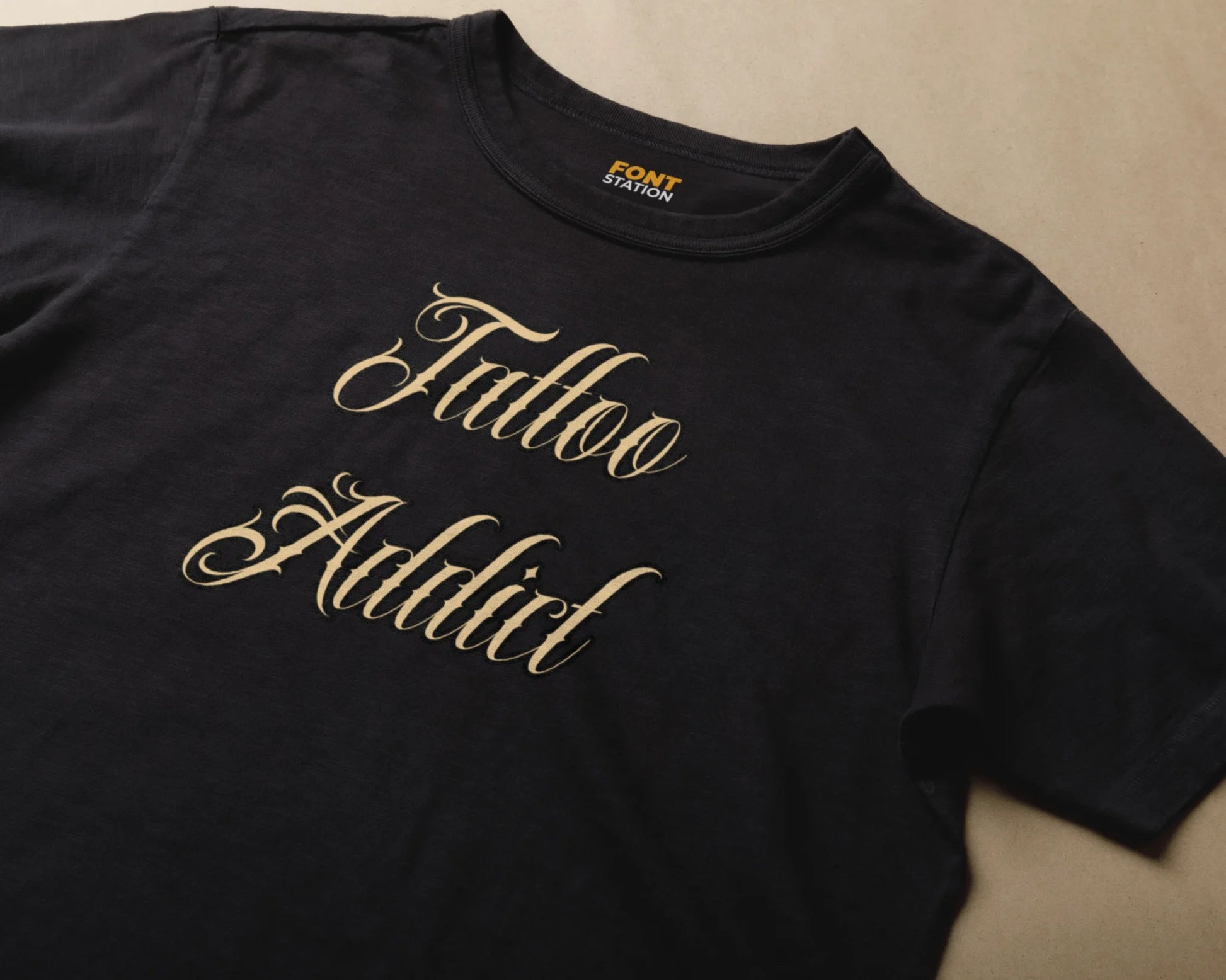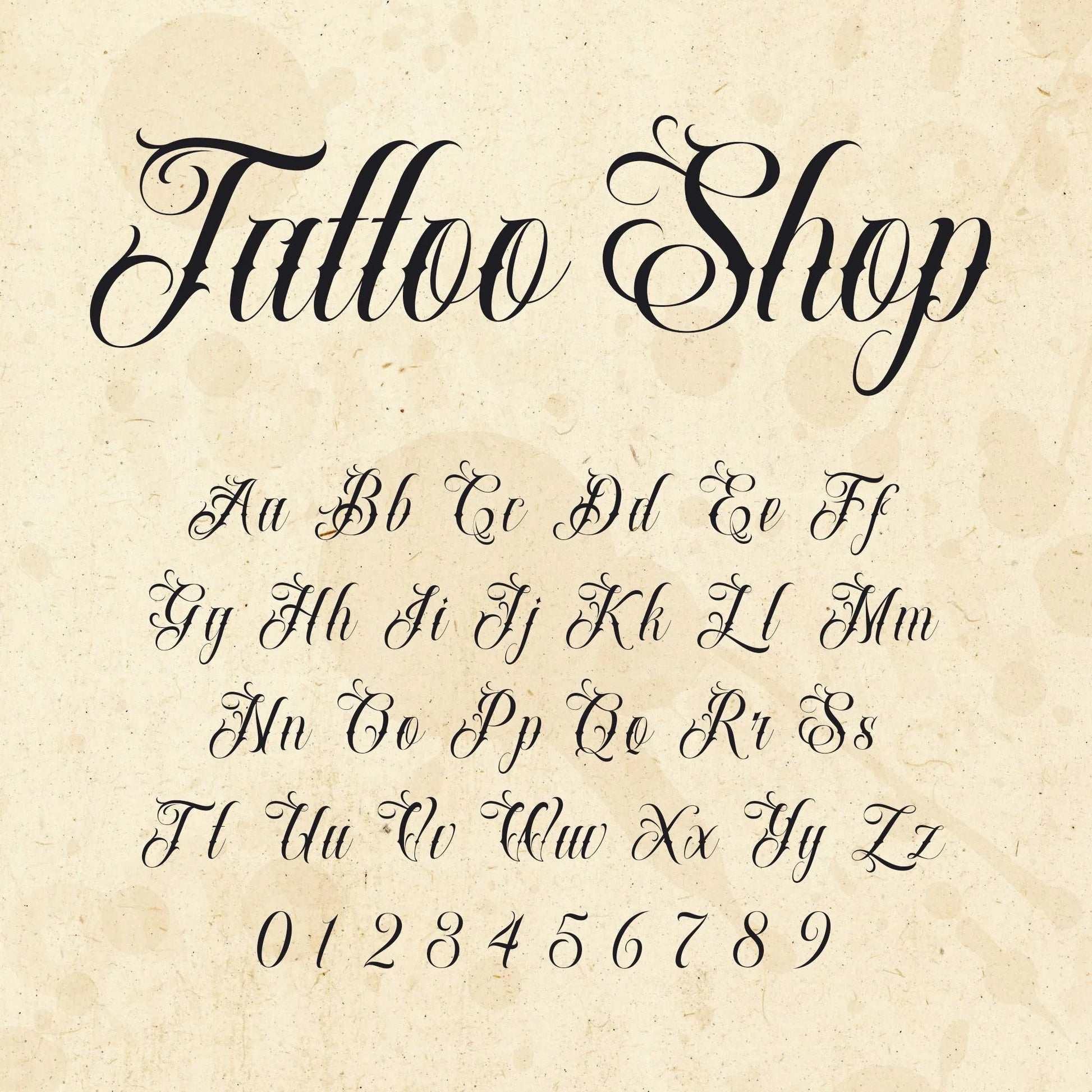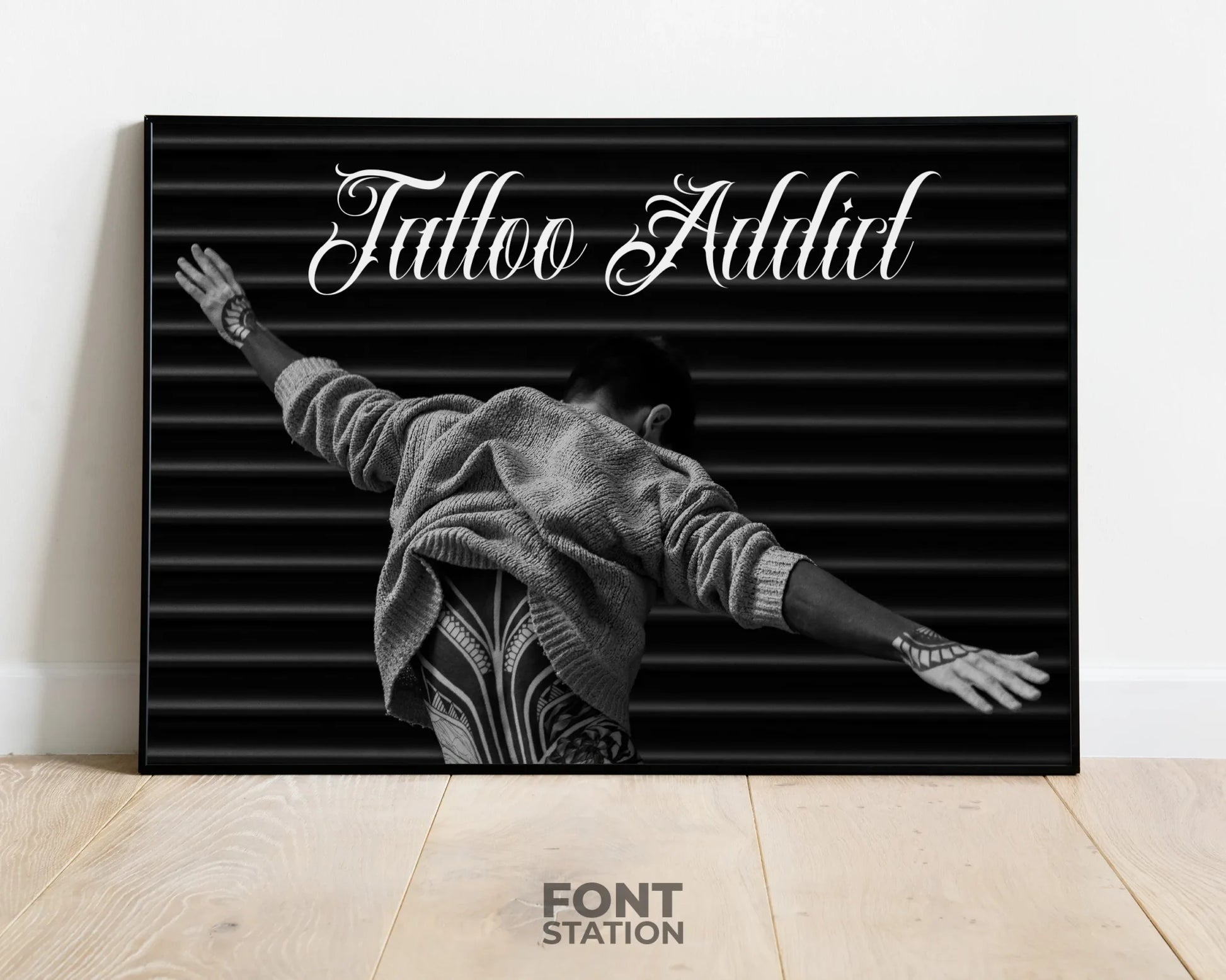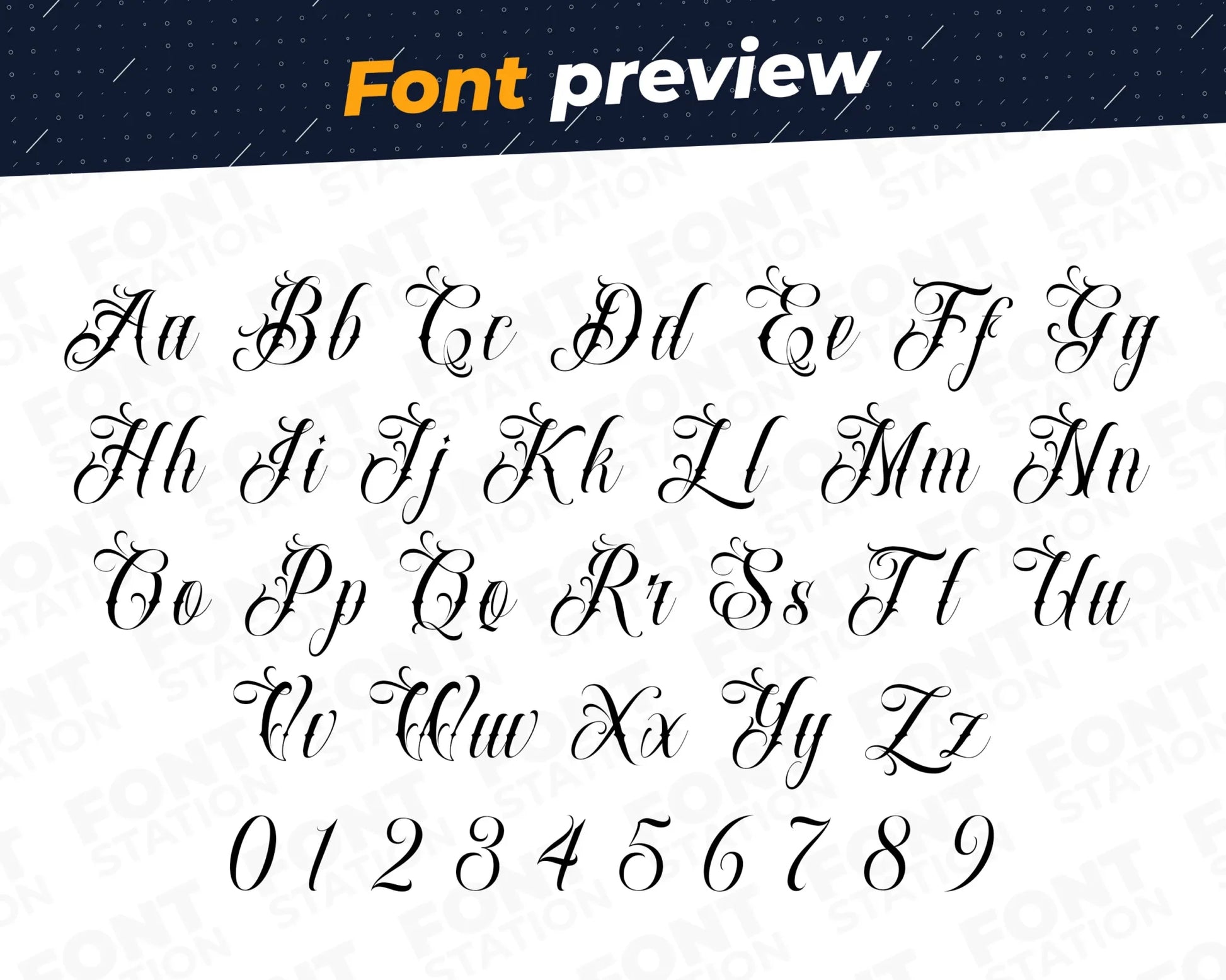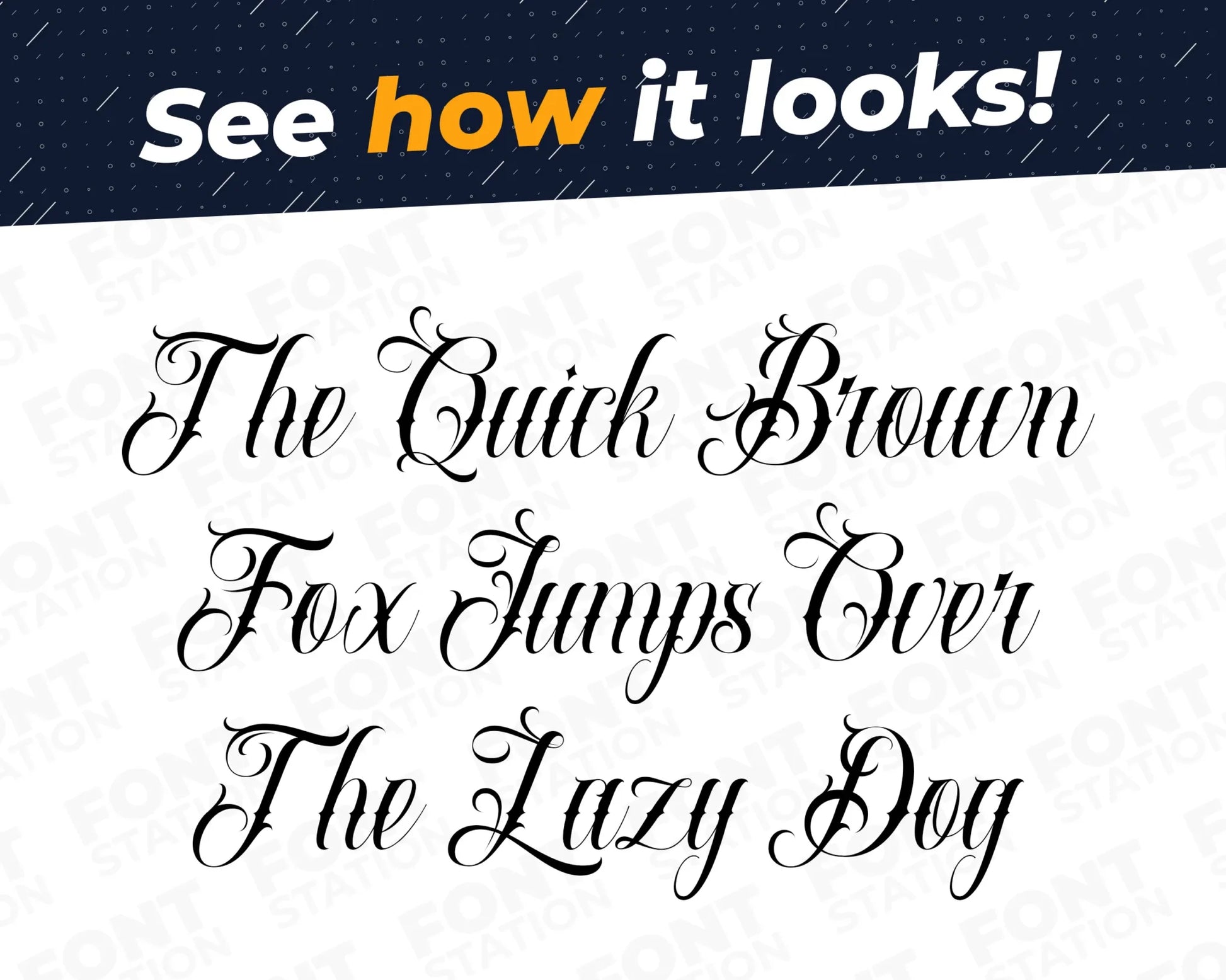
Tattoo Shop Font
Our Tattoo Shop typeface, inspired from Black Ink Tattoo Style font
Grab your computer, tablet or other device and start creating right now with our Tattoo Shop font letters! Our Tattoo Shop typography is inspired from Black Ink Tattoo font, making it ideal for various digital creations (logo, word...), sublimation, cake toppers, stickers, event decorations, and more.